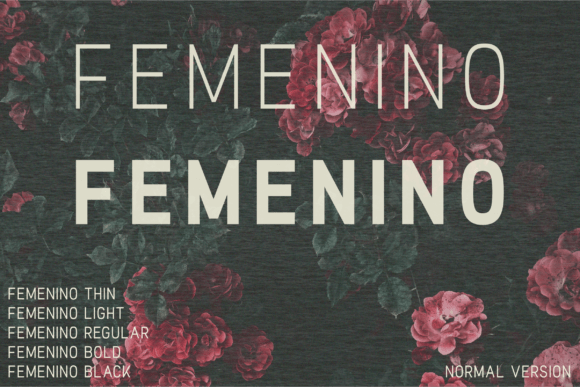
Femenino Font: The Epitome of Grace and Finesse in the Digital World
Embark on a typographic journey like never before with Femenino, the stunning sans serif font family that embodies the essence of elegance and minimalism. Meticulously crafted by the renowned Nan Design, this collection of fonts is a testament to the power of simplicity and sophistication. With five distinct weights at your fingertips, you can effortlessly transform your creative visions into captivating realities.
Unleash the allure of Femenino's delicate curves and sharp angles, perfectly harmonizing to create a visual masterpiece. Its clean lines and airy structure bring a touch of effortless grace to every design, whether you're crafting a captivating art magazine, designing a timeless logo, or creating an awe-inspiring film poster.
Femenino is more than just a font; it's an invitation to elevate your designs to new heights. Its versatile nature effortlessly adapts to a wide array of projects, seamlessly blending modernity and luxury. The result? Designs that transcend trends and leave a lasting impression on your audience.
Indulge in the beauty of Femenino's timeless charm, allowing your designs to radiate an aura of sophistication and simplicity. Experience the magic of fonts that effortlessly communicate your message with clarity and elegance.
Don't settle for ordinary fonts; embrace the extraordinary with Femenino. Its exquisite design will captivate your audience, leaving them spellbound by the beauty of your creations.
Embrace the power of Femenino today and unlock the gateway to a world of typographic excellence. Let your designs bloom with grace andfinesse, leaving an enduring legacy of creativity and inspiration.